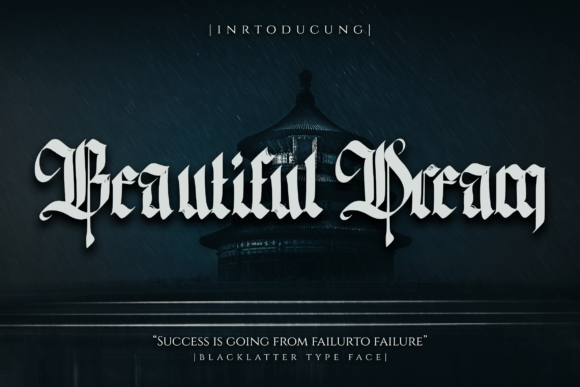
Unleash the Bold Beauty of Your Designs with Beautiful Dream Font!
Step into a world of timeless elegance and captivating charm with Beautiful Dream Font, the blackletter masterpiece created by meizzalunadesign. This exquisite font family exudes an aura of sophistication that will transform your designs into works of art.
Immerse yourself in the timeless beauty of blackletter calligraphy, where each stroke and curve carries a story of its own. Beautiful Dream Font is a testament to the enduring power of tradition, skillfully crafted to bring a touch of vintage charm to your modern creations.
Let your imagination soar as you explore the limitless possibilities of Beautiful Dream Font. Its bold and daring typography commands attention, making it the perfect choice for product packaging, branding, and any project that demands a bold statement.
Visualize your designs adorned with the intricate details and sweeping curves of Beautiful Dream Font. Its elegant lines will lend an air of sophistication to your logos, posters, and social media graphics, leaving a lasting impression on your audience.
In the realm of fashion, Beautiful Dream Font reigns supreme. Its distinctive blackletter style perfectly complements the bold and edgy aesthetic of clothing brands. Imagine your designs gracing t-shirts, hoodies, and accessories, exuding an aura of confidence and individuality.
Beautiful Dream Font is not just a font; it's an expression of your creativity. Its versatility knows no bounds, allowing you to explore a wide range of design styles. Whether you seek a classic, vintage look or a bold, contemporary aesthetic, Beautiful Dream Font has the power to transform your vision into reality.
With Beautiful Dream Font by your side, you hold the key to unlocking a world of design possibilities. Its intricate beauty and bold character will elevate your projects to new heights, leaving your audience spellbound. Embrace the timeless elegance of blackletter calligraphy and let Beautiful Dream Font take your designs to breathtaking new horizons.